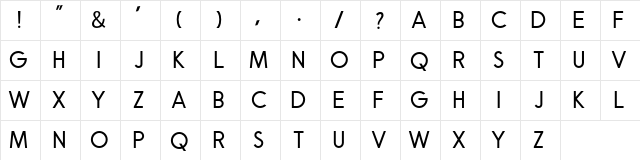
Robusta Sans Demo Regular
| Foundry | Runsell Studio |
| Designer | Edi Gunawan |
Design Context for Robusta Sans Demo Typeface
Robusta Sans Demo offers clean, dependable letterforms without strong stylistic allegiance, making it a practical choice for designers who need flexibility.